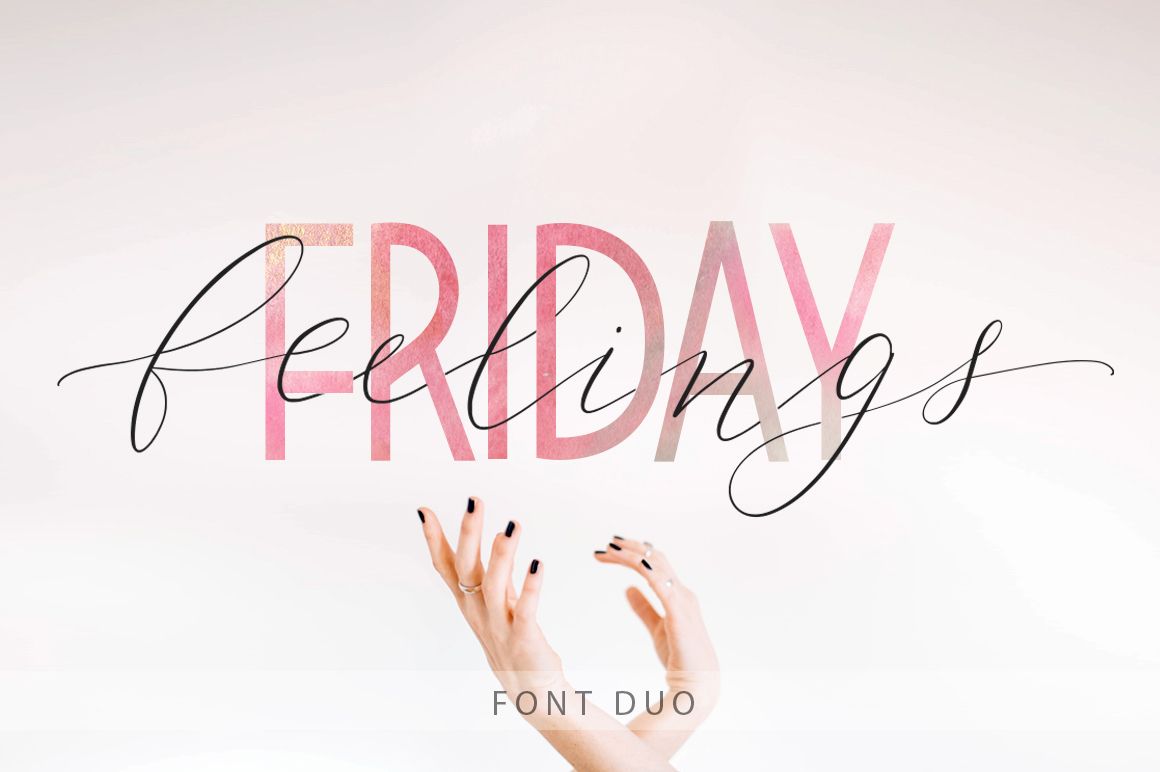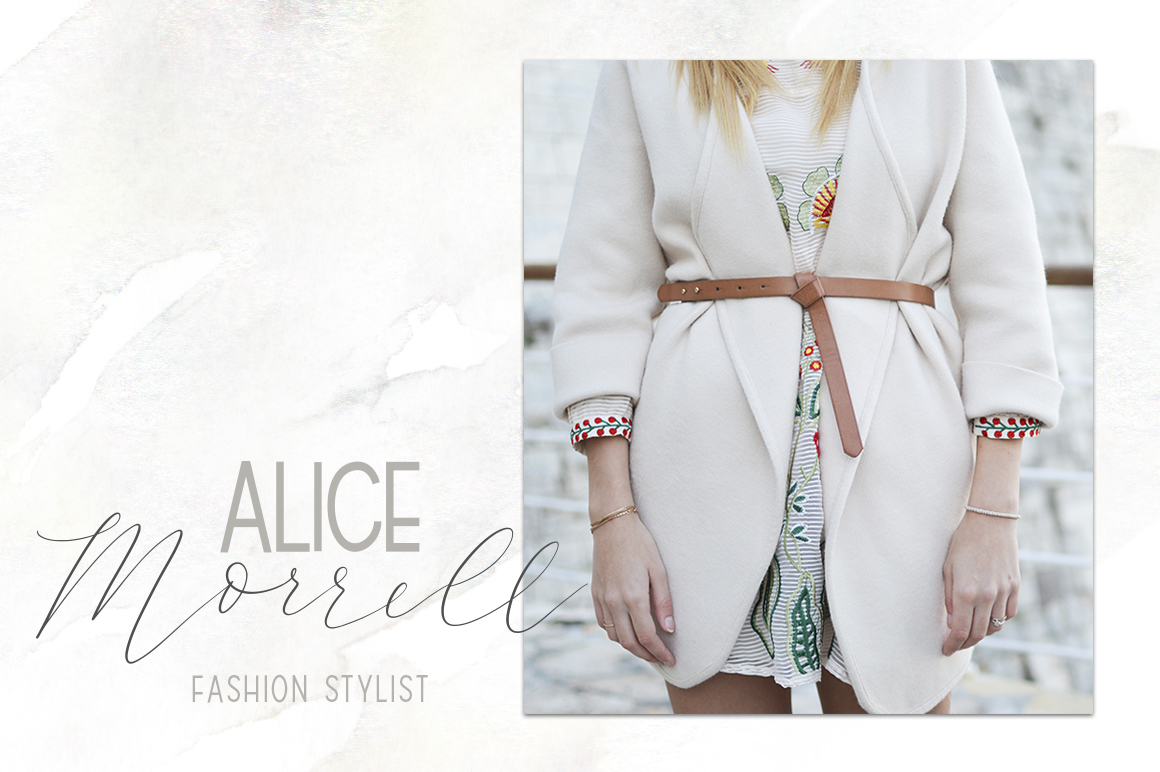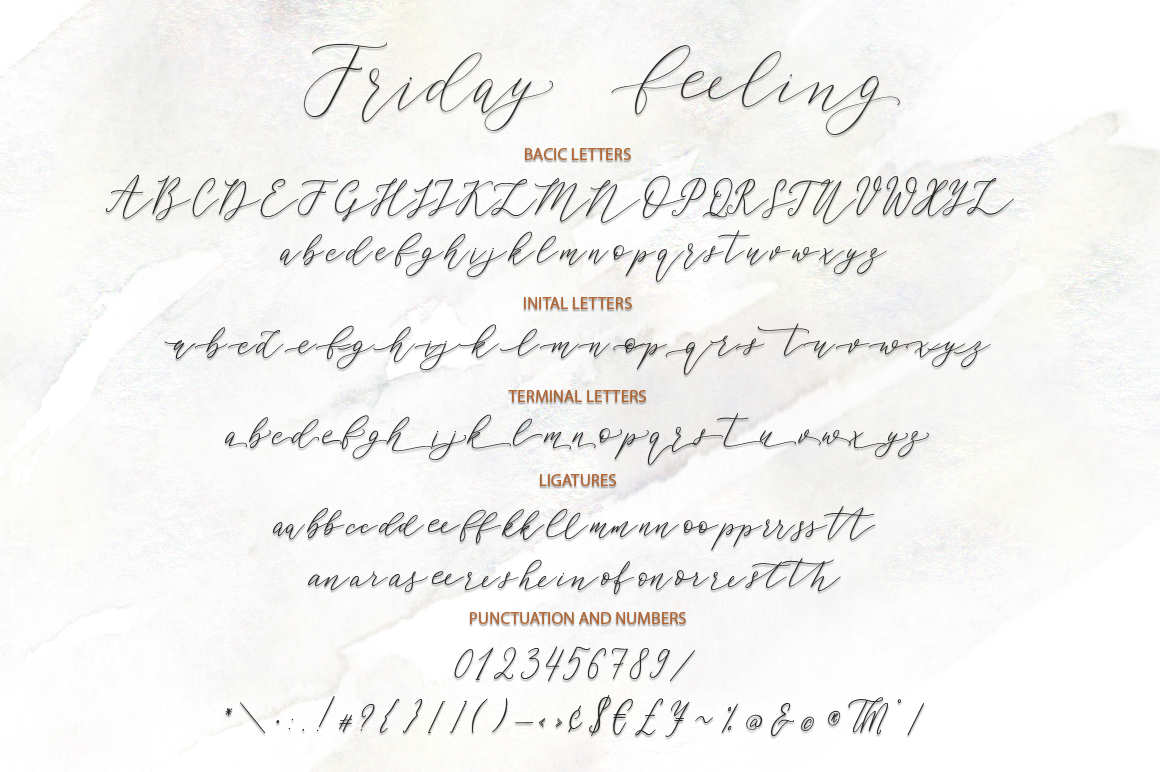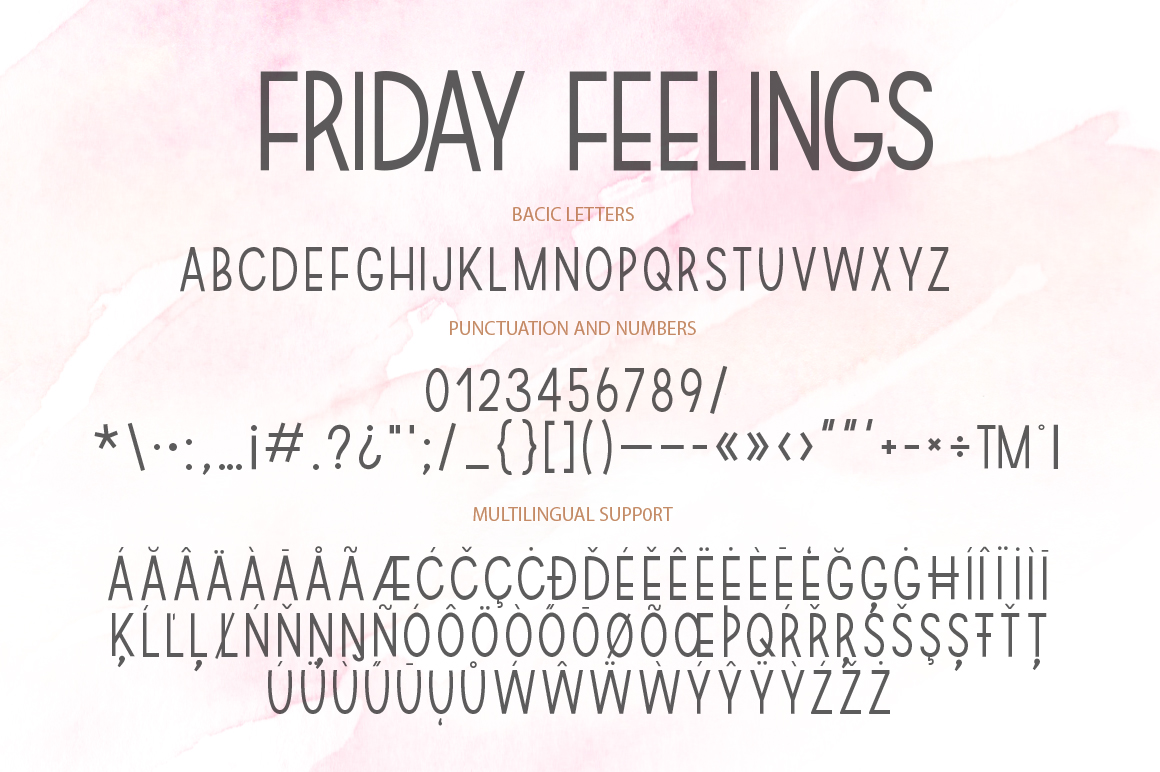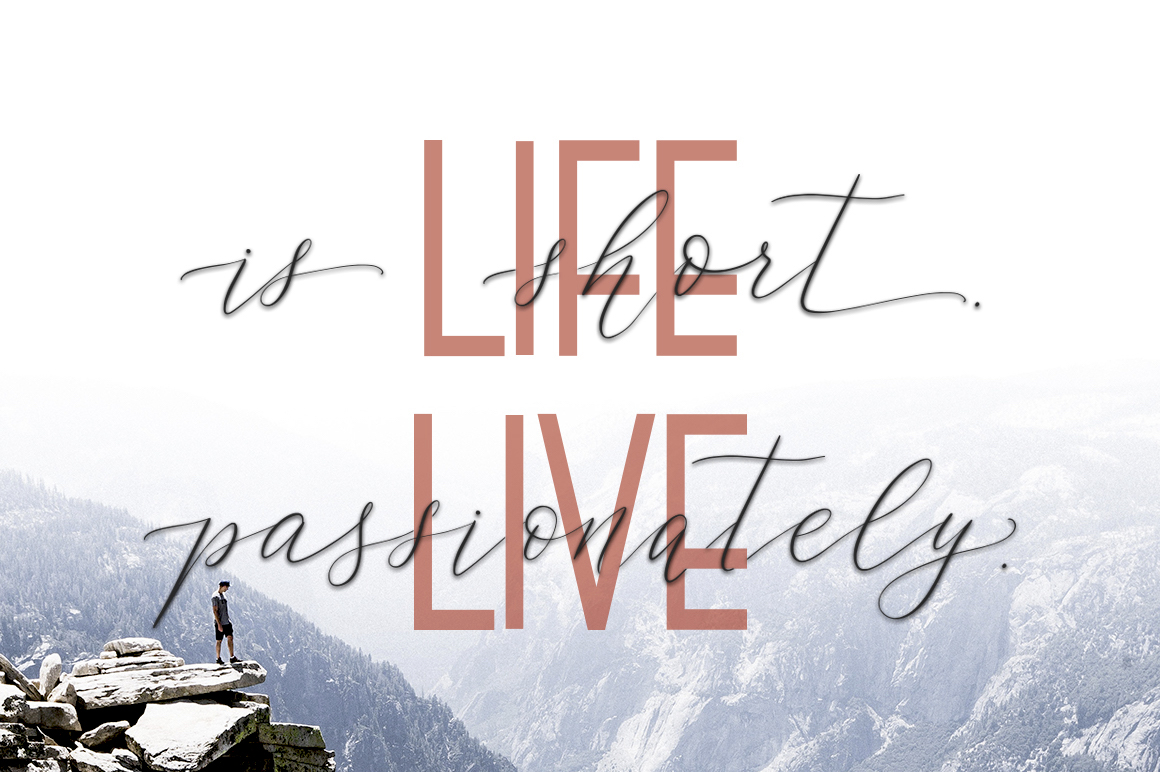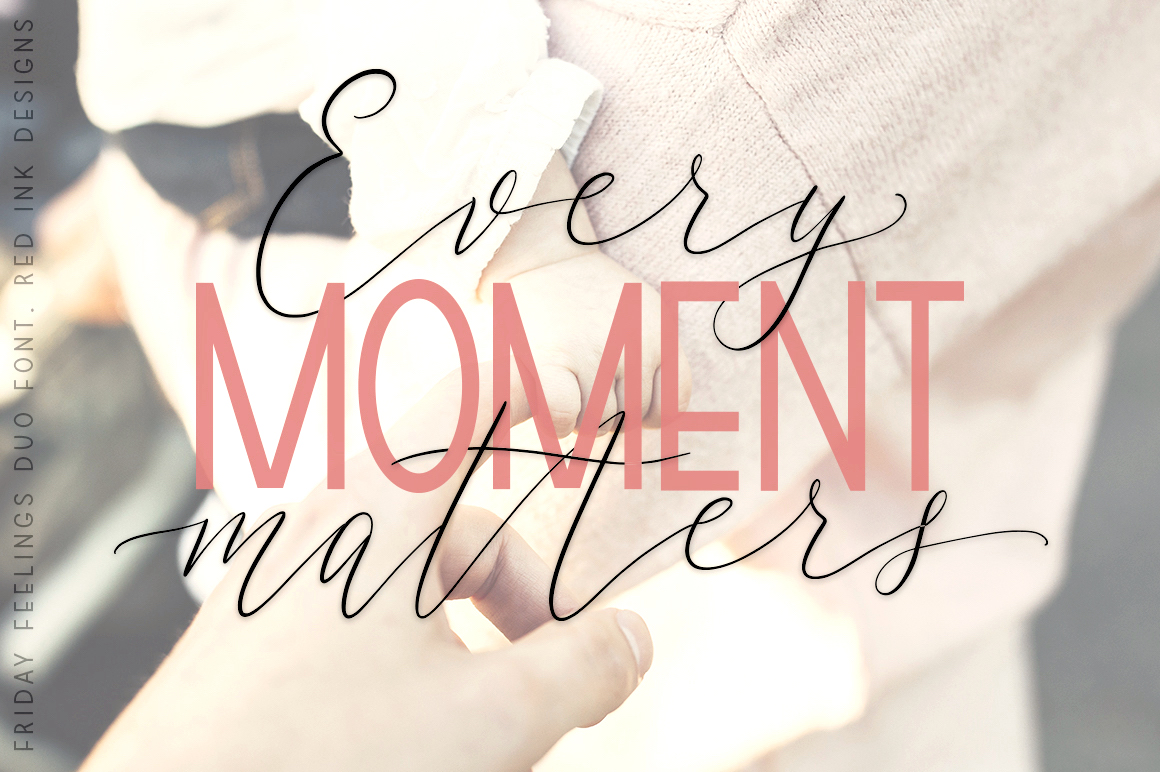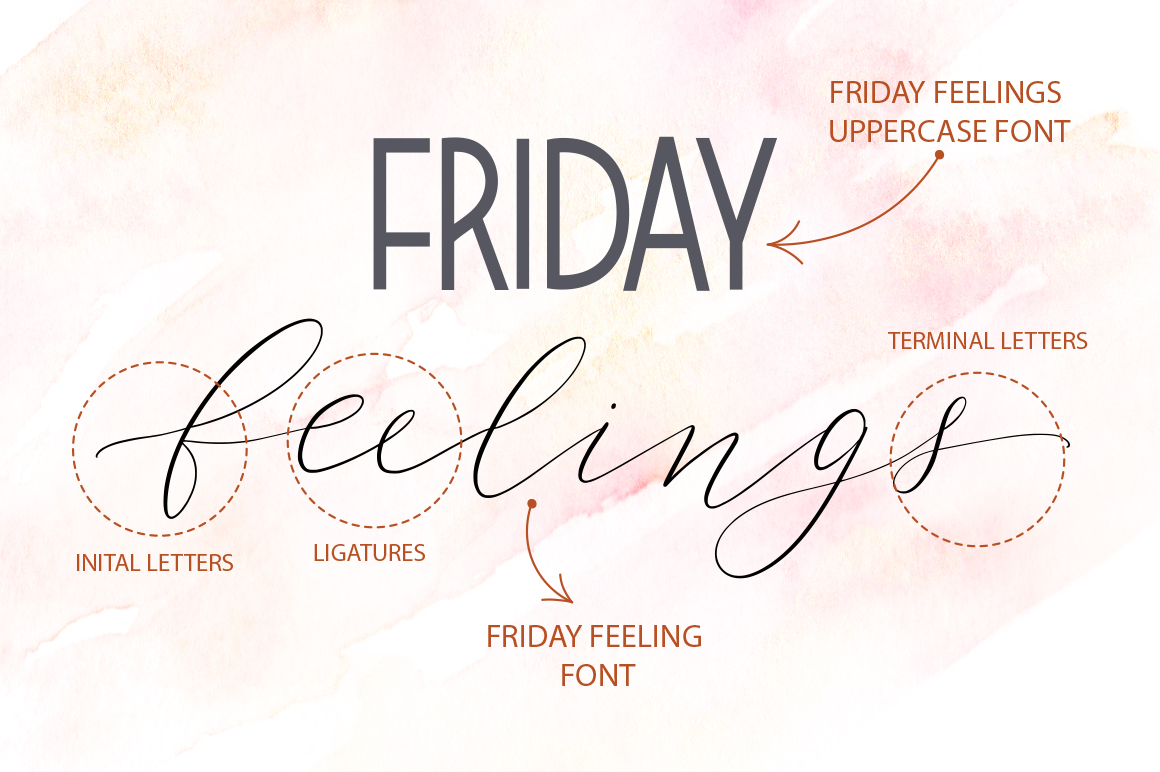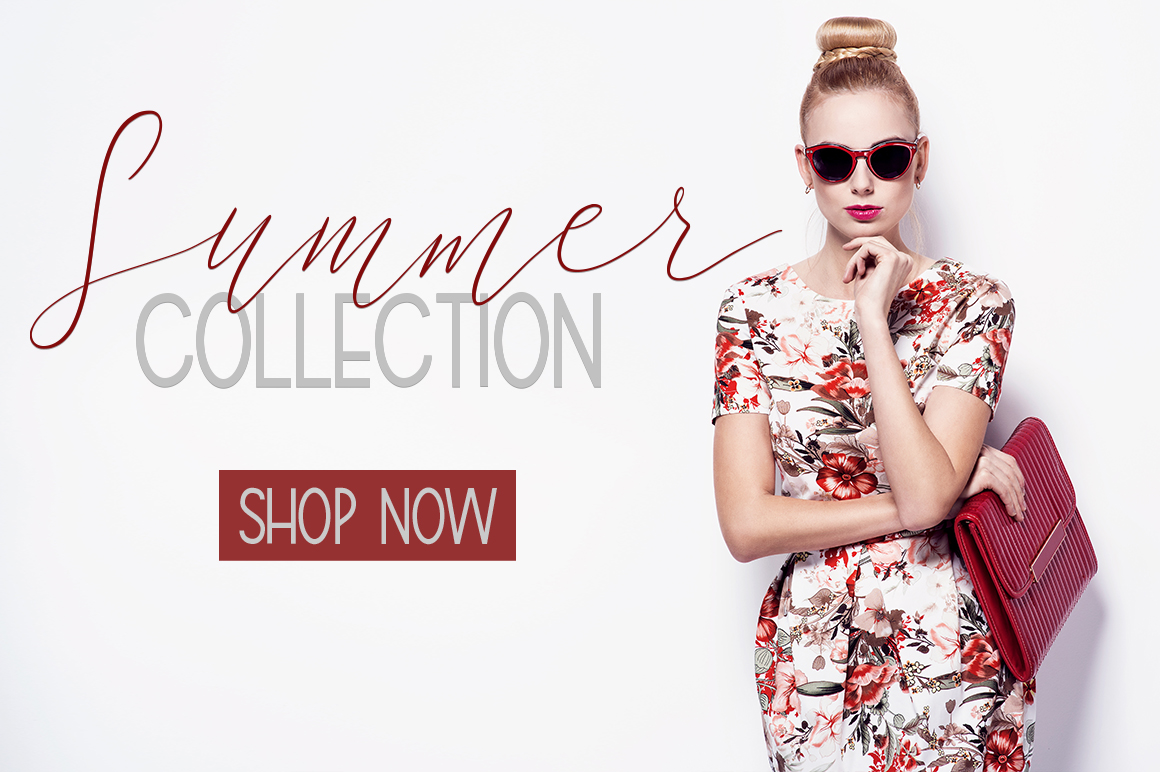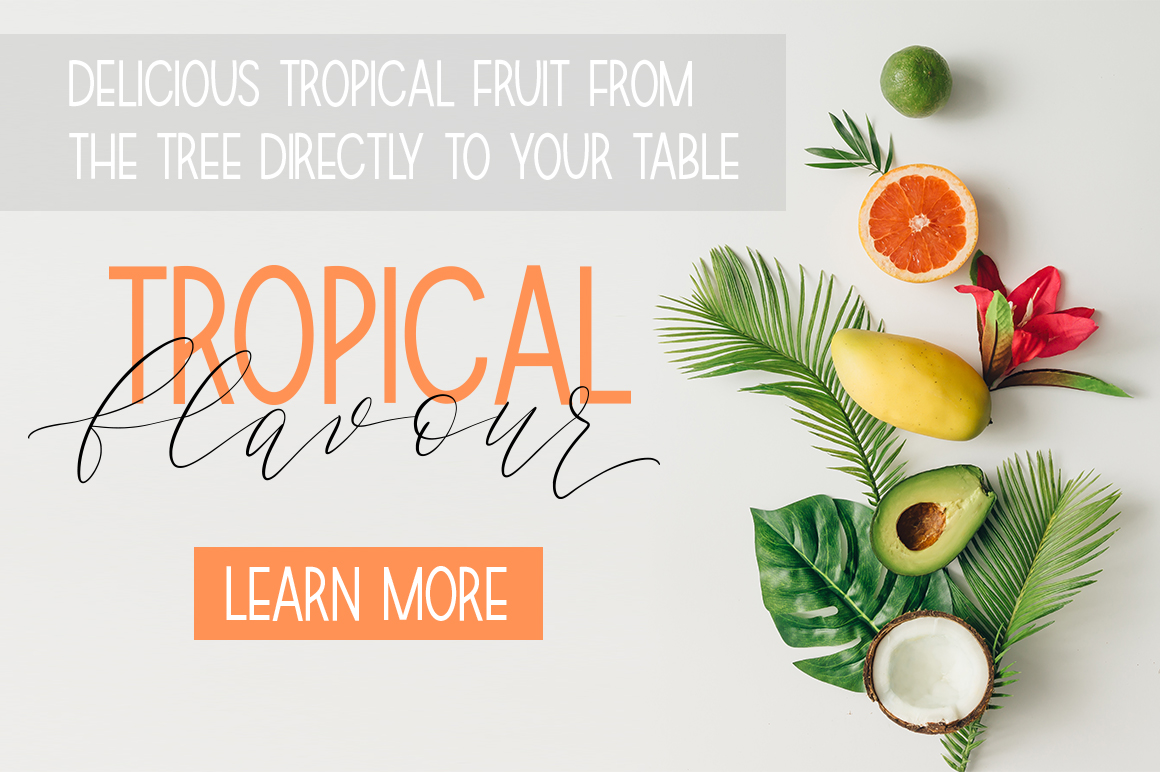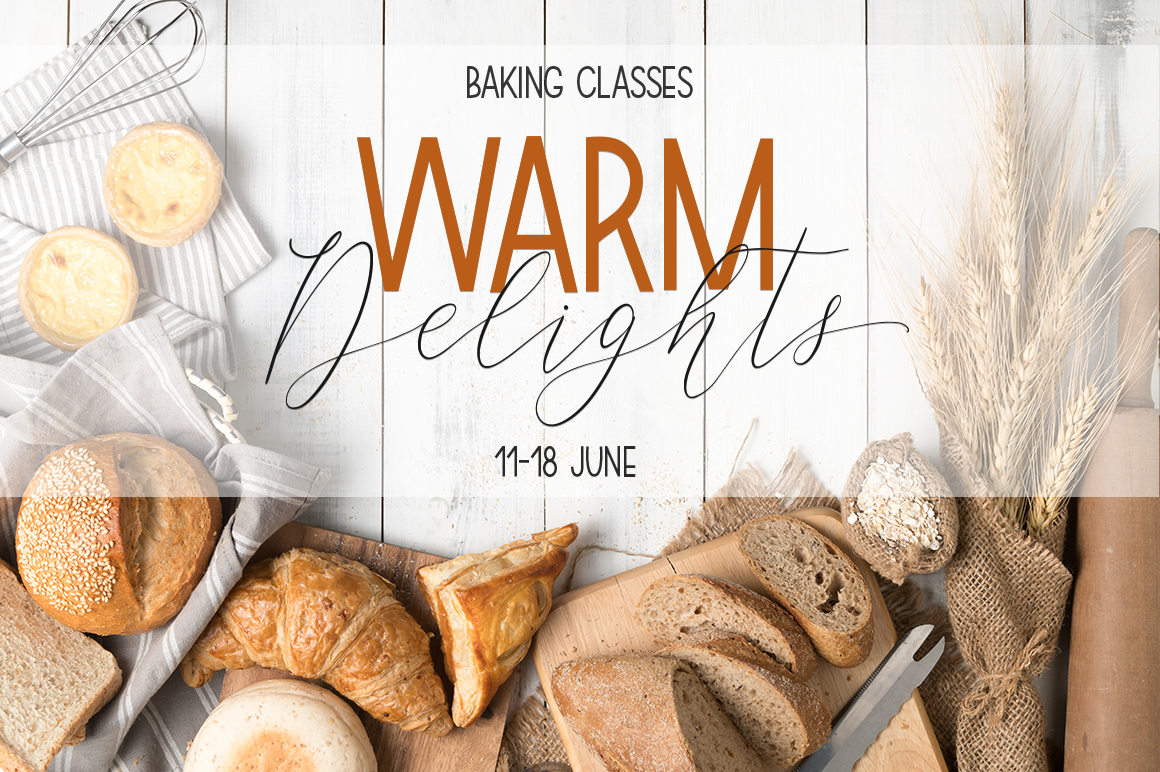
Friday Feelings Font
Friday Feelings ia beautiful and complementary pair of fonts, perfect for giving your projects an expressive feel. This calligraphy and sans serif font duo looks great in a wide range of projects types.